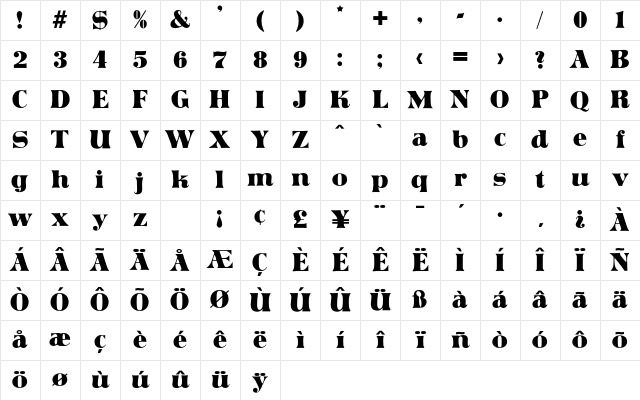
Sarajevo Regular
Design Context for Sarajevo
Sarajevo is a composed and adaptable typeface that performs quietly and consistently across a wide range of design contexts.